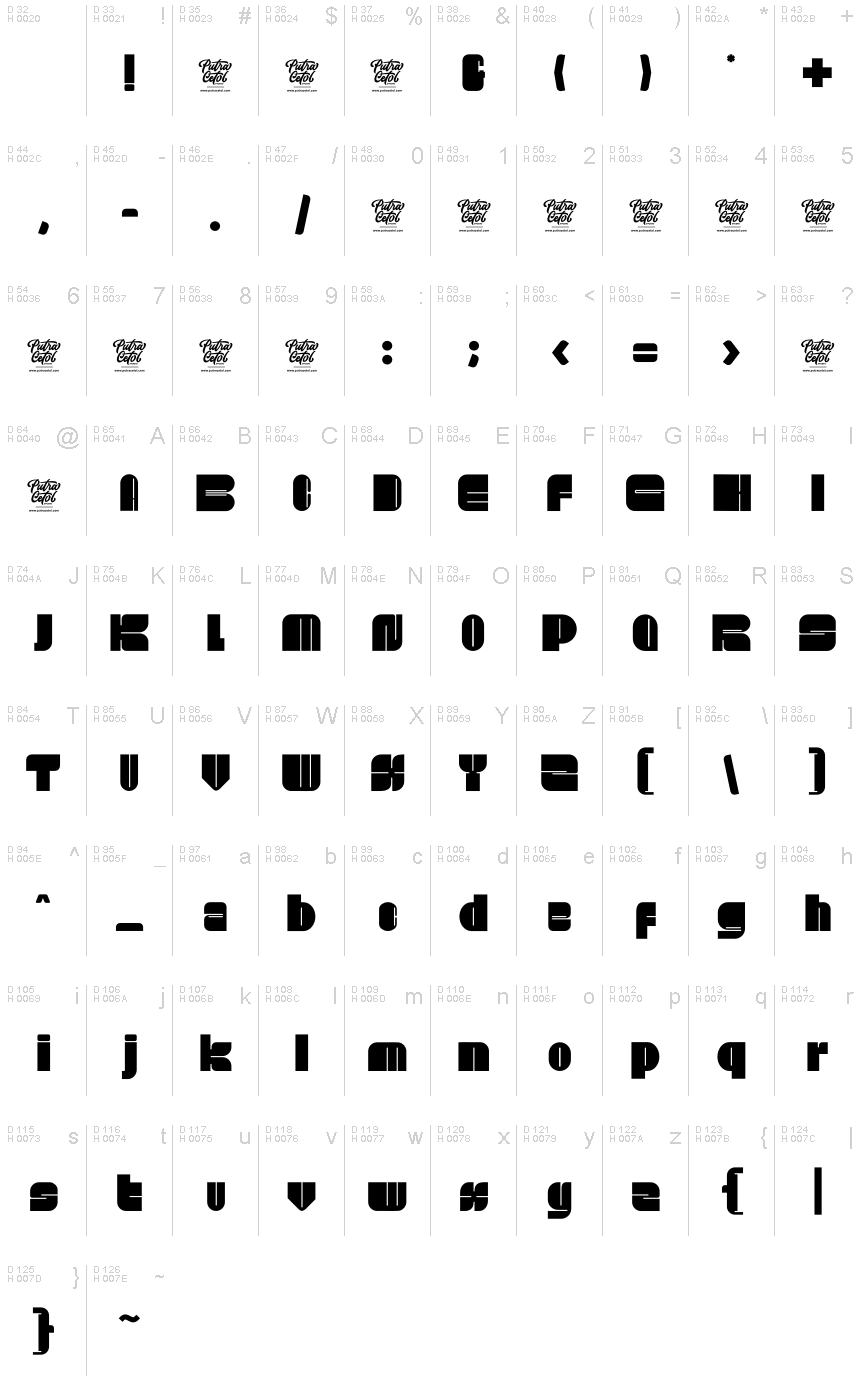
TRUCK MACHINE
Truck Machine, a bold and captivating display font crafted by PutraCetol Studio, exudes a distinct groovy charm. With its expanded width and striking letterforms, this font commands attention, evoking a sense of energy and enthusiasm. The font's expressive nature lends itself seamlessly to headlines, logos, and branding applications, where its bold, eye-catching presence can make a lasting impression.
Truck Machine's versatility extends beyond its visual allure. Its bold, expanded style makes it a suitable choice for a variety of design projects, from retro-inspired layouts to modern and edgy compositions. Whether adorning product packaging, event posters, or digital interfaces, Truck Machine's unique flair can elevate the overall aesthetic, adding a touch of dynamic personality to any design.